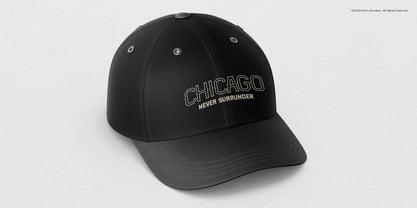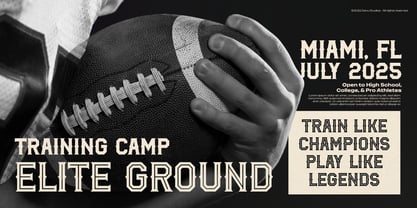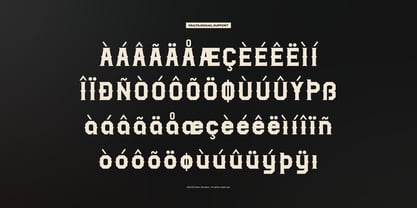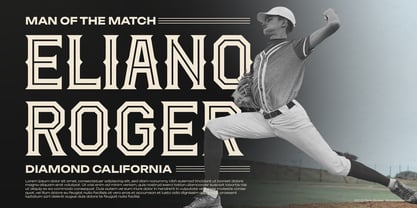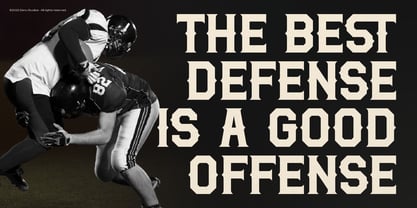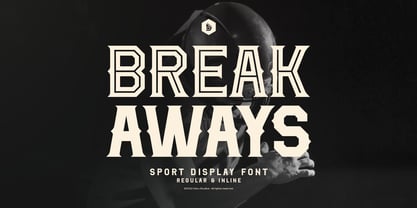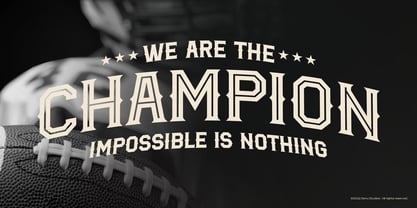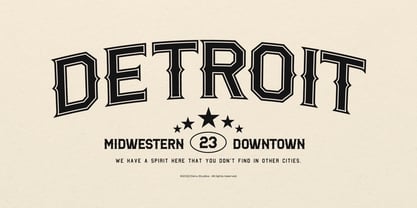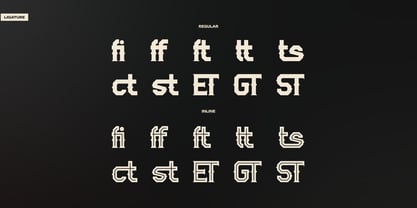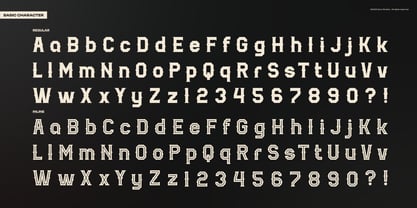
Break Aways Inline
by Denustudio
The Break Aways Inline Font Family was designed by Dede Nugraha and published by Denustudio. Break Aways Inline contains 1 styles. More about this family
Break Aways | Sport Display Font, from Denustudios, suitable for any projects such as: logos, branding projects, homeware designs, product packaging, mugs, quotes, posters, shopping bags, t-shirts, book covers, name card, invitation cards, greeting cards, label, photography, watermark, special events, and all your other lovely projects that need Sport Display Font a taste.
• Alternate and Ligature
Designers: Dede Nugraha
Foundry: Denustudio